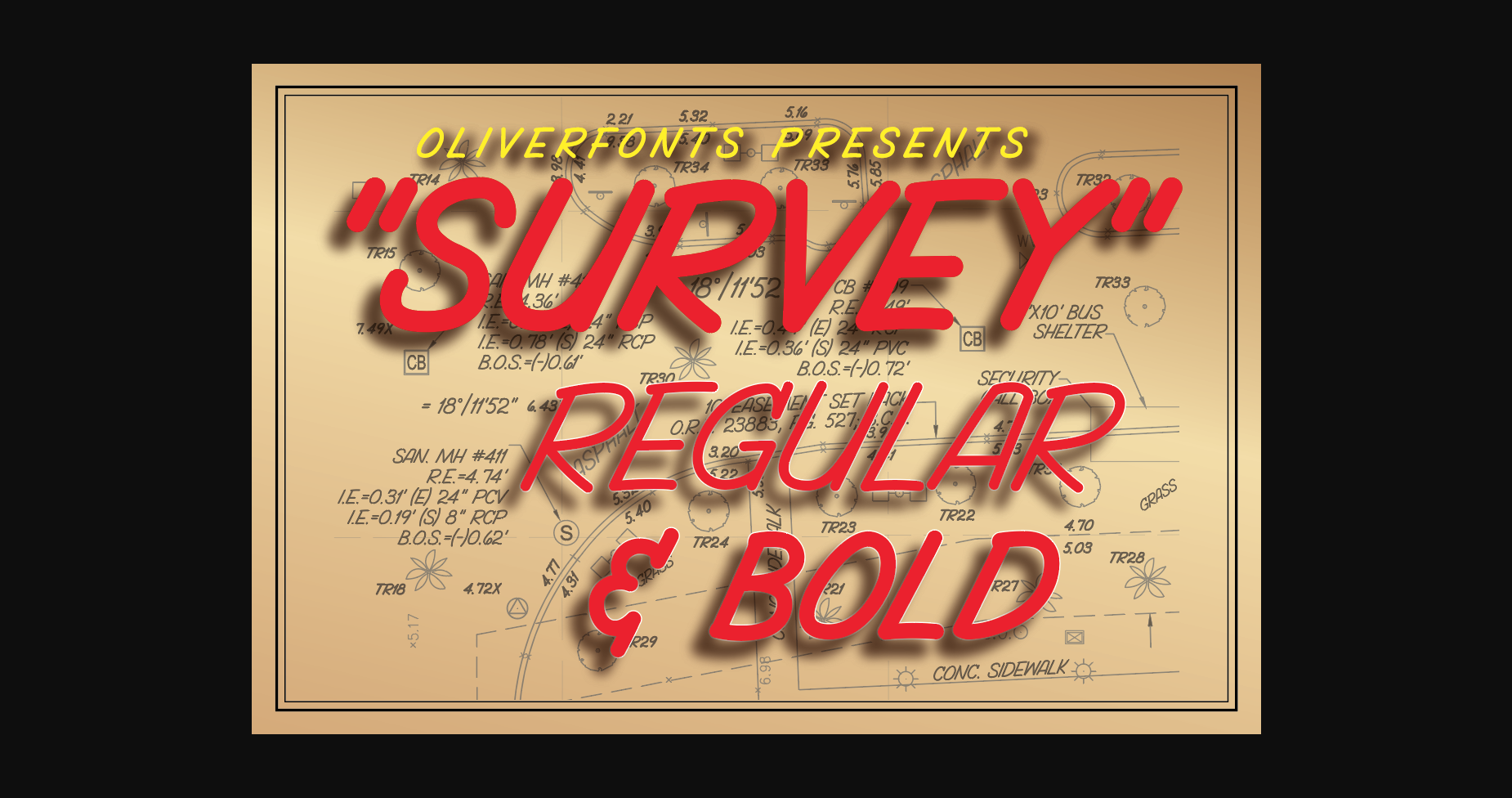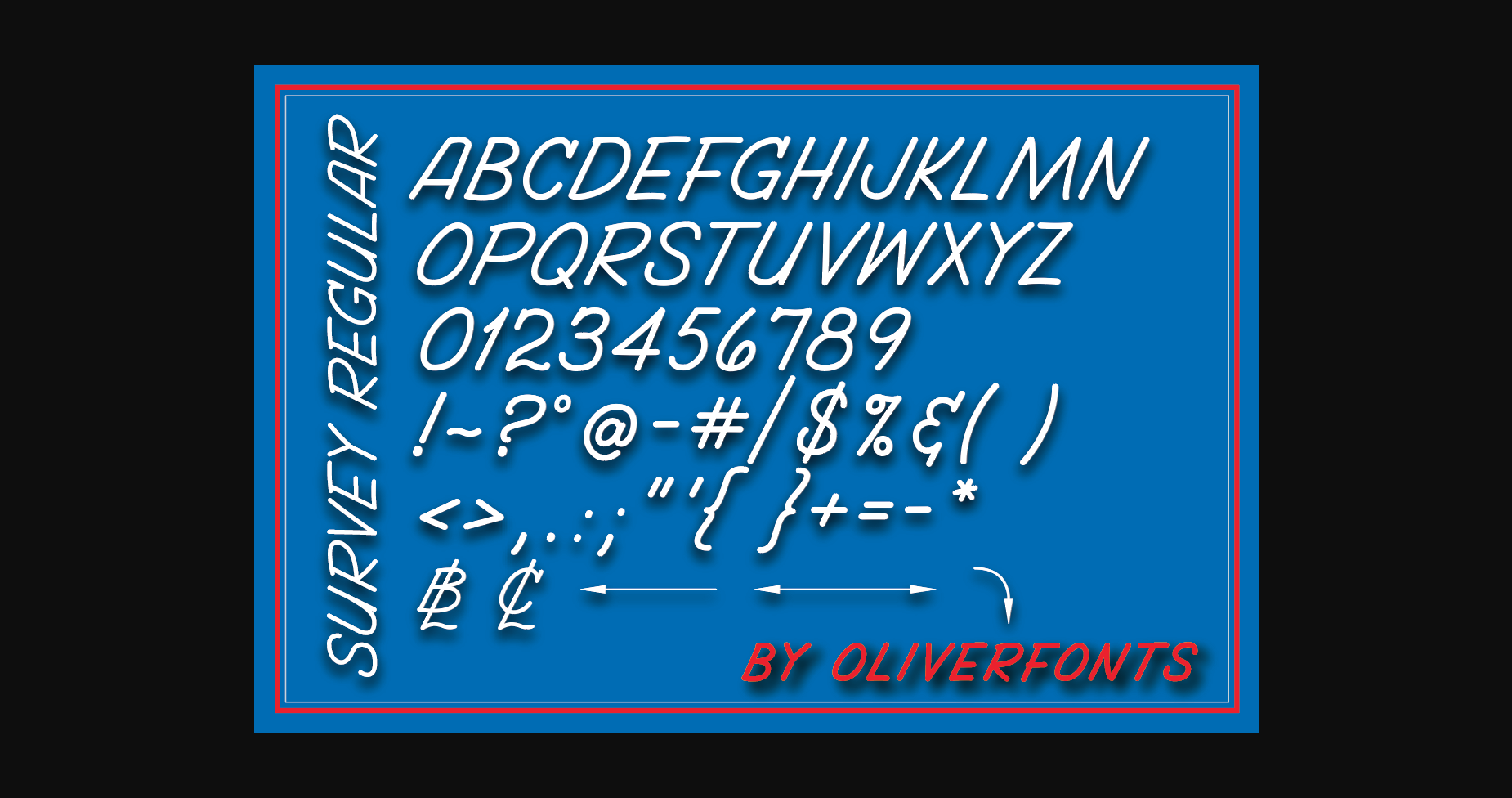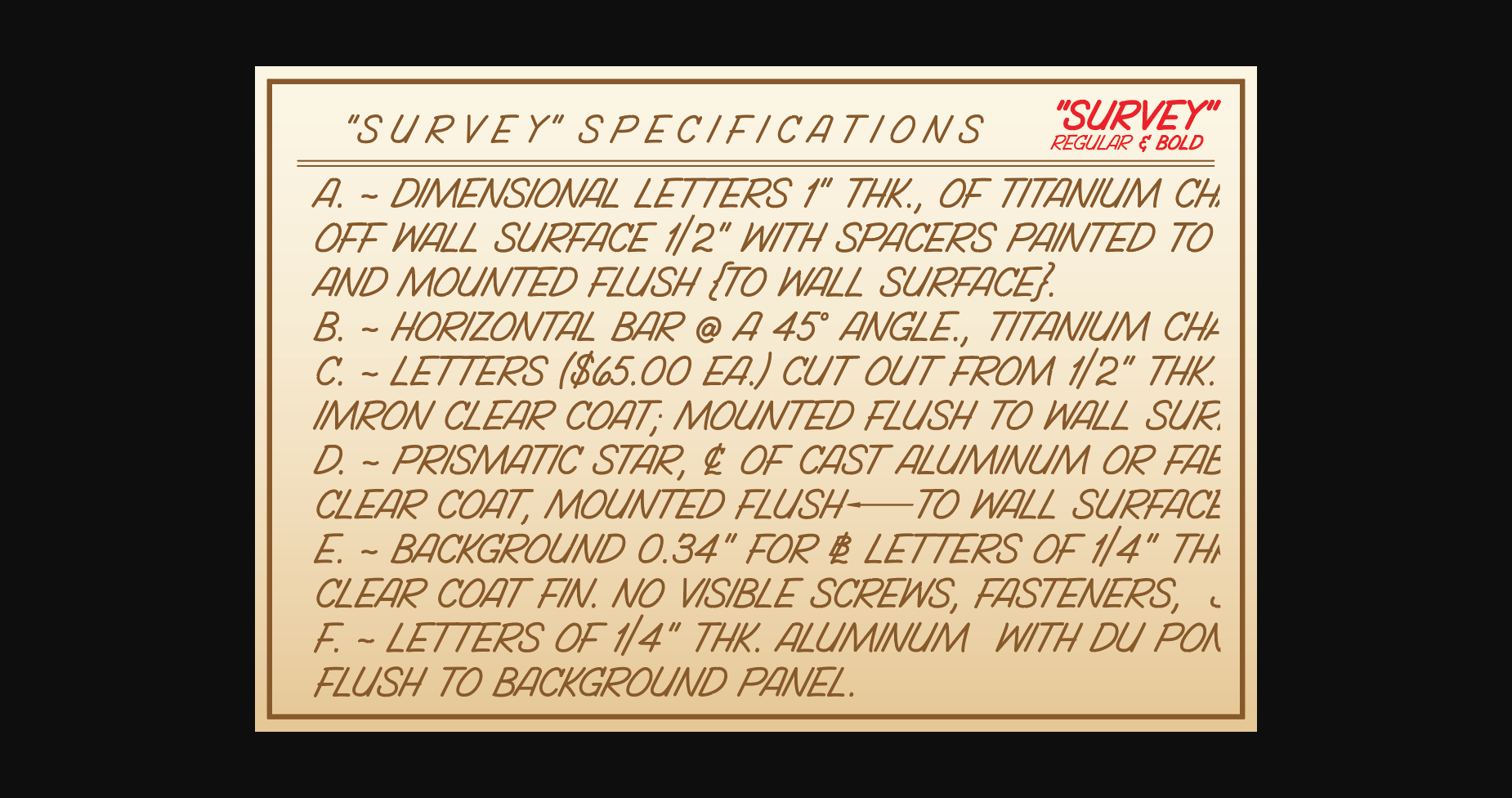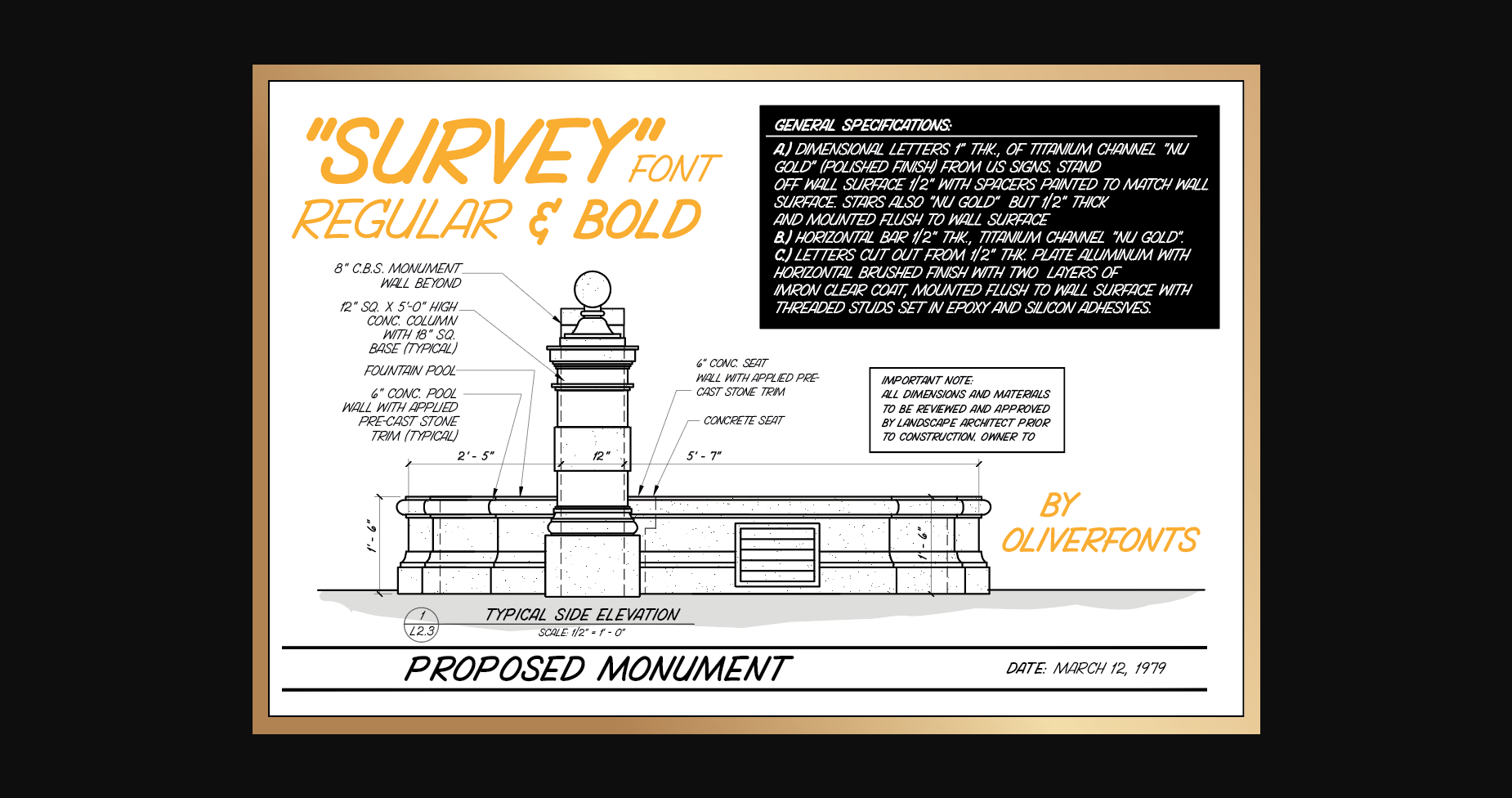
About Survey Font
Survey is an all-caps sans serif font with unique and original glyphs, perfectly suited for technical or architectural drawings or casual hand lettering applications. Add it to your creative projects and enjoy the results!